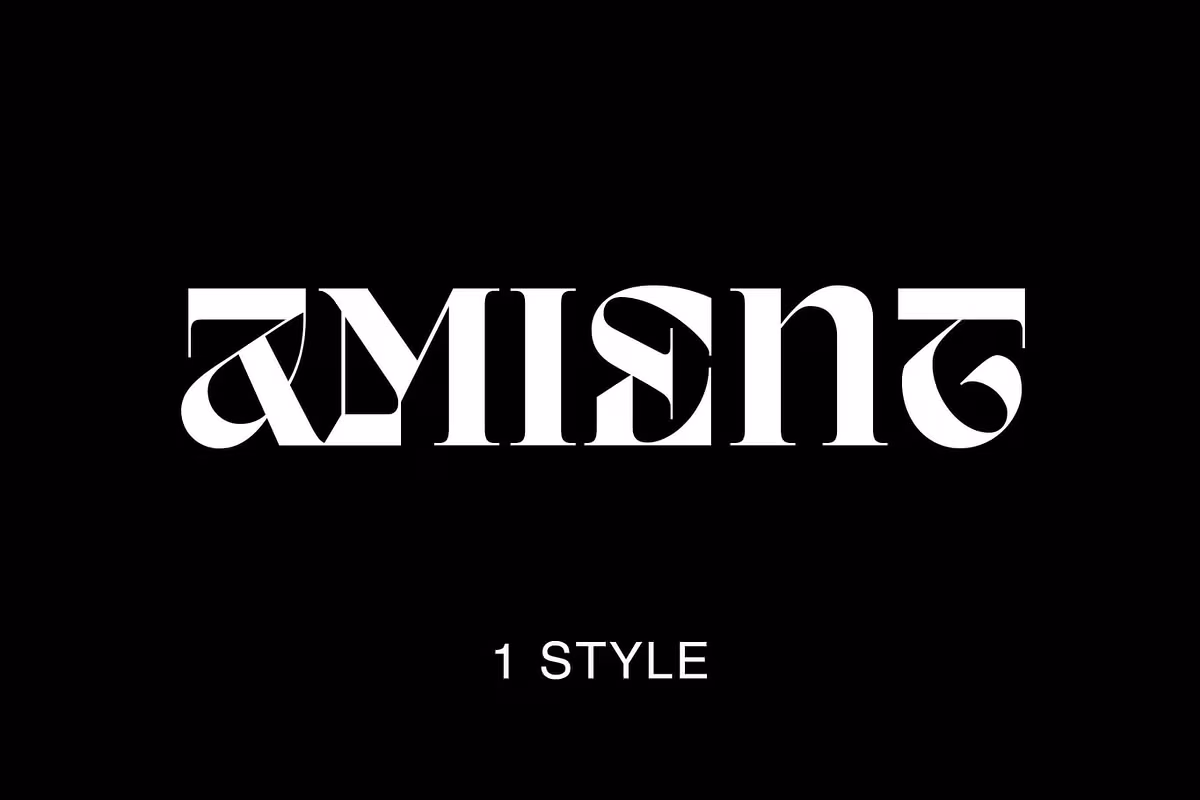
Amient – Modern Display Font Free Download is a sleek and contemporary typeface designed for impactful display designs. Perfect for headlines, logos, posters, and other creative projects, Amient combines bold, geometric letterforms with a modern touch. Its clean lines and striking presence make it an ideal choice for projects that require a sharp, eye-catching look.